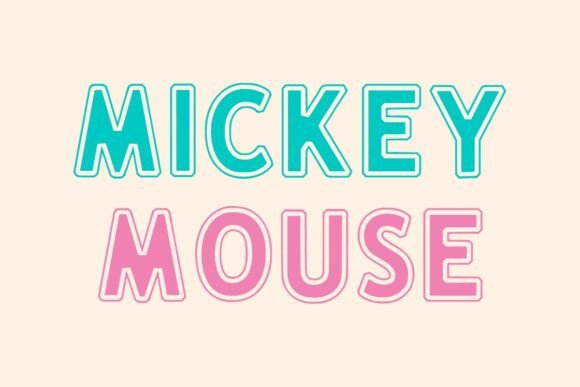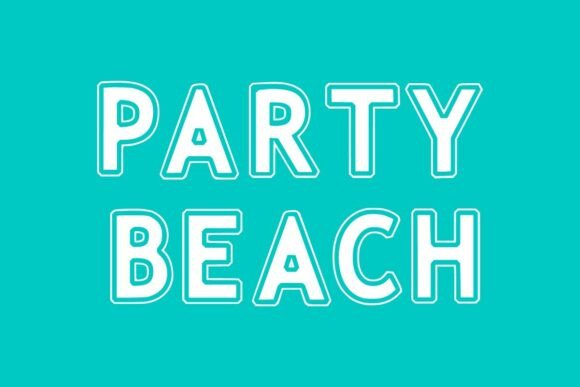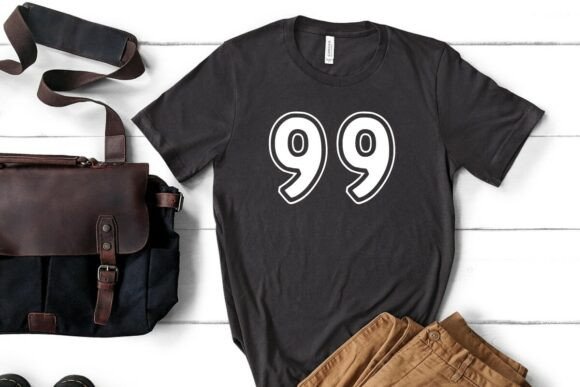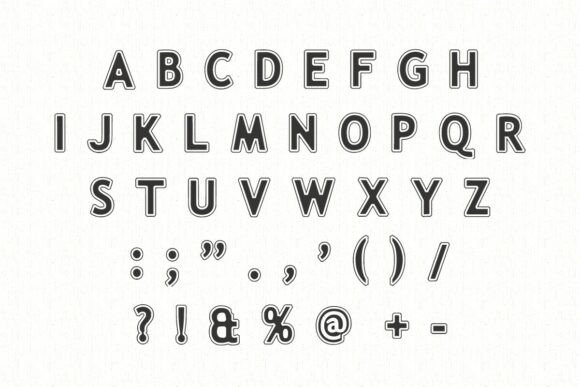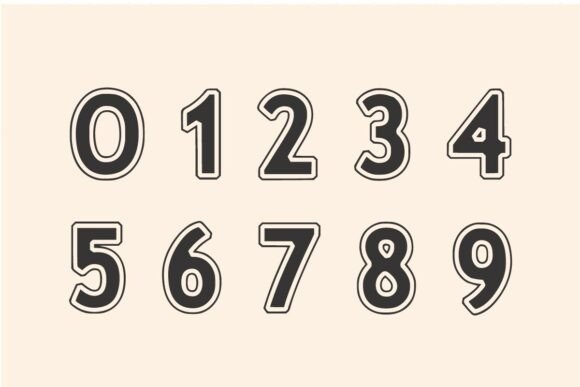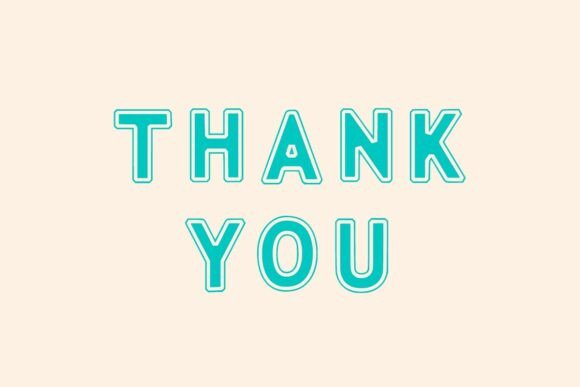
Introducing Chunky Grizzy Font: The Ultimate Winter Wonderland Addition
Are you looking for a font that can add a touch of joy and festivity to your winter and holiday branding projects? Look no further than Chunky Grizzy Font! This fun and bold outline display font with rounded lettering is perfect for creating eye-catching designs that scream winter wonderland. In this article, we’ll dive into the features and benefits of Chunky Grizzy Font, and explore how you can use it to take your designs to the next level.
What is Chunky Grizzy Font?
Chunky Grizzy Font is a unique and playful display font that is specifically designed to add a touch of whimsy and fun to your designs. Its bold outline and rounded lettering give it a distinctive look that is both modern and nostalgic. The font is perfect for use in a variety of design projects, including winter and holiday branding, product packaging, invitations, quotes, t-shirts, labels, posters, and more.
Key Features of Chunky Grizzy Font
- Fun and bold outline display font: Chunky Grizzy Font features a bold and eye-catching design that is sure to grab attention.
- Rounded lettering: The font’s rounded lettering gives it a friendly and approachable feel that is perfect for winter and holiday designs.
- Suitable for a variety of design projects: Chunky Grizzy Font is versatile and can be used in a range of design projects, from branding and packaging to invitations and posters.
- Easy to read: Despite its bold and chunky design, Chunky Grizzy Font is easy to read, making it perfect for use in titles, headings, and other display text.
Benefits of Using Chunky Grizzy Font
So why should you choose Chunky Grizzy Font for your winter and holiday designs? Here are just a few benefits of using this amazing font:
- Adds a touch of joy and festivity: Chunky Grizzy Font is designed to add a touch of fun and whimsy to your designs, making it perfect for winter and holiday projects.
- Instantly recognizable: The font’s bold and chunky design makes it instantly recognizable, and is sure to grab attention.
- Versatile: Chunky Grizzy Font can be used in a range of design projects, from small-scale designs like t-shirts and labels to large-scale designs like posters and billboards.
How to Use Chunky Grizzy Font in Your Designs
So how can you use Chunky Grizzy Font in your designs? Here are a few ideas to get you started:
- Winter and holiday branding: Use Chunky Grizzy Font to create eye-catching logos and branding materials for your winter and holiday-themed products or services.
- Product packaging: Add a touch of fun and whimsy to your product packaging with Chunky Grizzy Font.
- Invitations and greeting cards: Use Chunky Grizzy Font to create festive and fun invitations and greeting cards for the winter and holiday season.
- T-shirts and apparel: Create eye-catching t-shirts and apparel with Chunky Grizzy Font.
- Posters and signage: Use Chunky Grizzy Font to create bold and eye-catching posters and signage for your winter and holiday events or promotions.
Tips and Tricks for Getting the Most Out of Chunky Grizzy Font
Here are a few tips and tricks for getting the most out of Chunky Grizzy Font:
- Experiment with different colors: Chunky Grizzy Font looks great in a range of colors, so don’t be afraid to experiment and find the perfect color scheme for your design.
- Use it in combination with other fonts: Chunky Grizzy Font pairs well with a range of other fonts, so try using it in combination with other fonts to create a unique and eye-catching design.
- Play with different sizes and styles: Chunky Grizzy Font looks great in a range of sizes and styles, so don’t be afraid to experiment and find the perfect look for your design.
In conclusion, Chunky Grizzy Font is a fun and bold outline display font that is perfect for adding a touch of joy and festivity to your winter and holiday designs. With its rounded lettering and bold design, it’s sure to grab attention and make your designs stand out. So why not give it a try and see how it can elevate your designs to the next level?